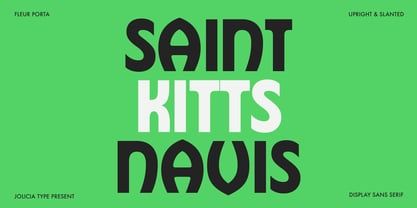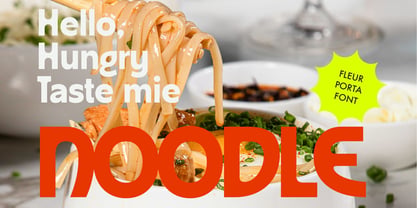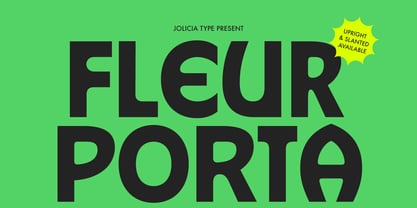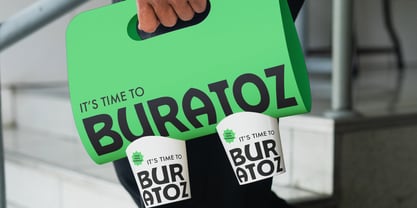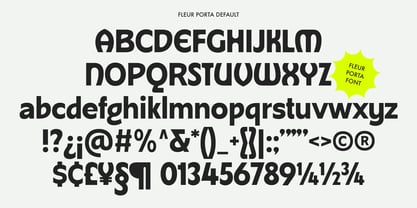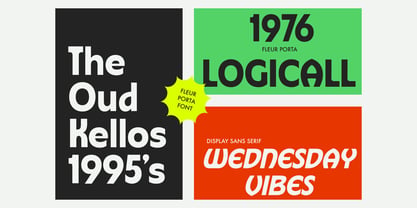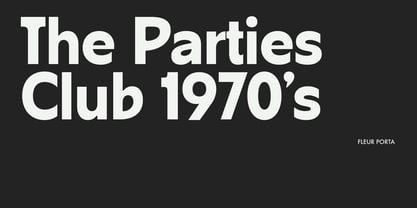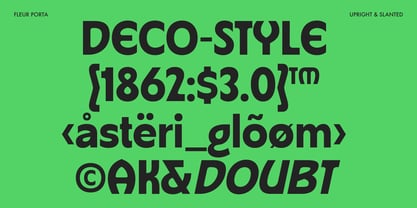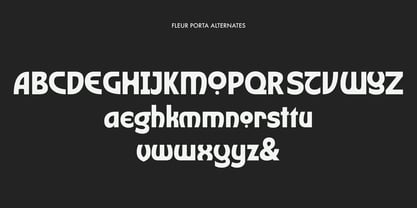
Fleur Porta
by Jolicia Type
The Fleur Porta Font Family was designed by Laire Banyu and published by Jolicia Type. Fleur Porta contains 2 styles and family package options. More about this family
Fleur Porta is a distinctive display sans serif typeface that seamlessly blends modern clarity with a touch of Art Deco elegance. Designed to make a statement, this font showcases clean geometric forms enhanced by refined decorative details, achieving a perfect balance between simplicity and sophistication. The Art Deco influence is evident in its graceful curves, stylish proportions, and unique letterforms, giving Fleur Porta a timeless yet contemporary personality. Its bold presence makes it highly effective for headlines, titles, posters, branding, and editorial designs that demand strong visual impact. Fleur Porta offers two versatile styles: Upright and Slanted, enabling designers to explore both a stable, classic look and a more dynamic, expressive feel within the same type family. This typeface is perfect for designers seeking to infuse a hint of luxury and artistic flair without compromising readability. Whether used in fashion branding, creative layouts, or striking typography, Fleur Porta delivers a confident and elegant statement in every composition.
Designers: Laire Banyu
Foundry: Jolicia Type